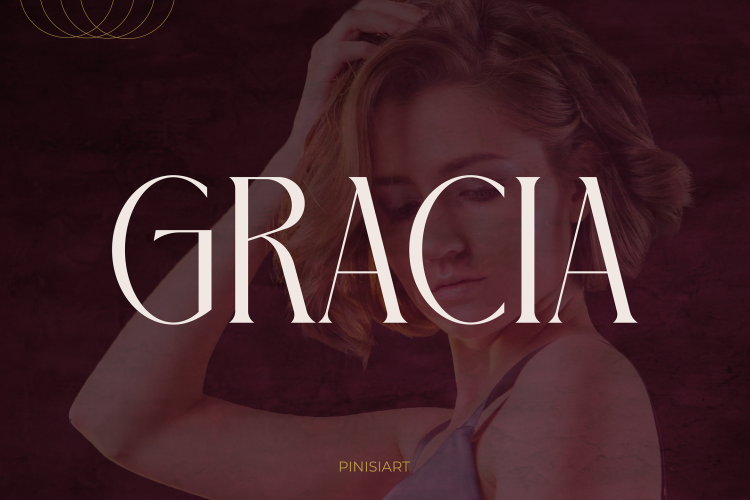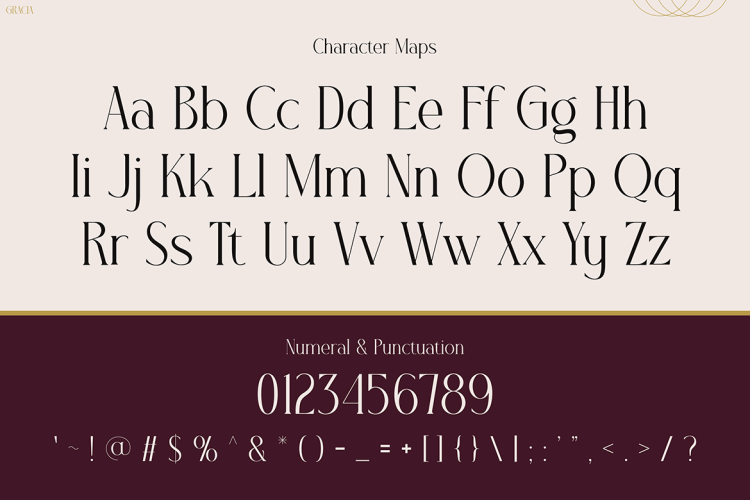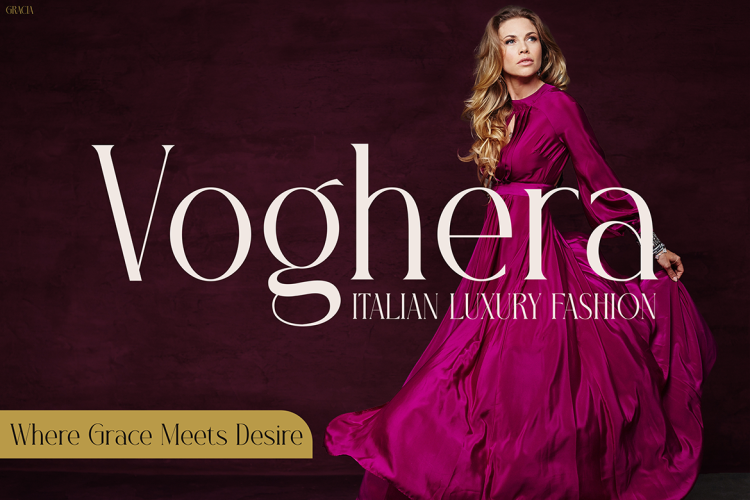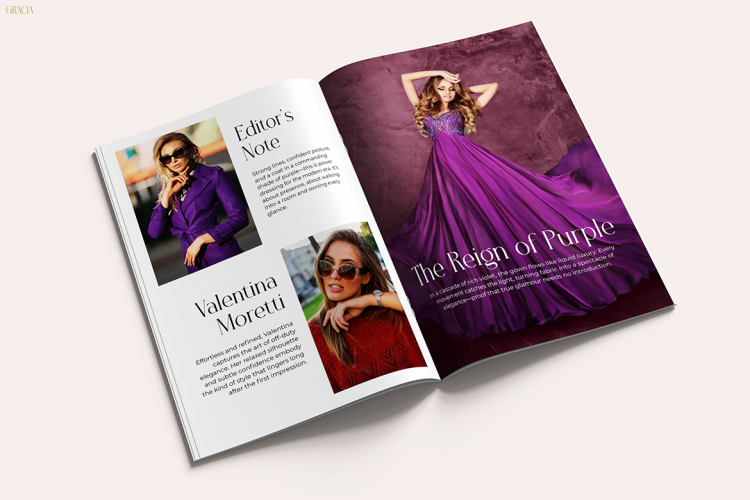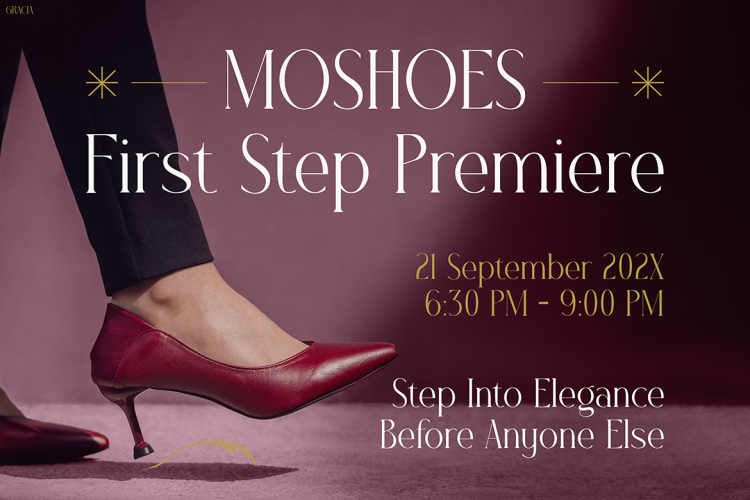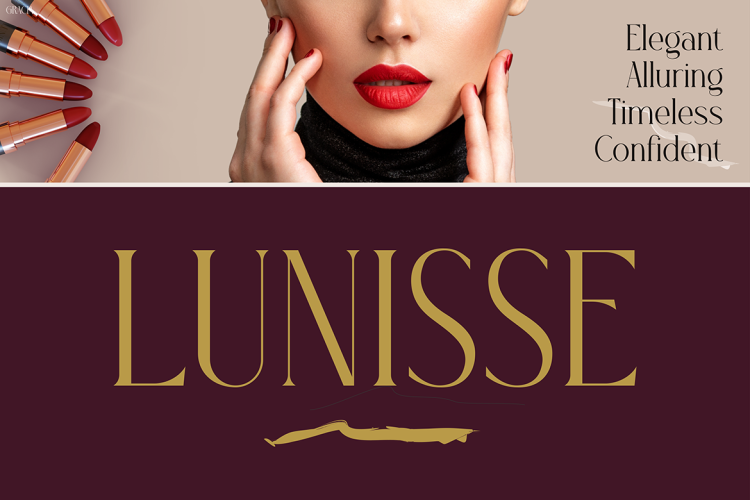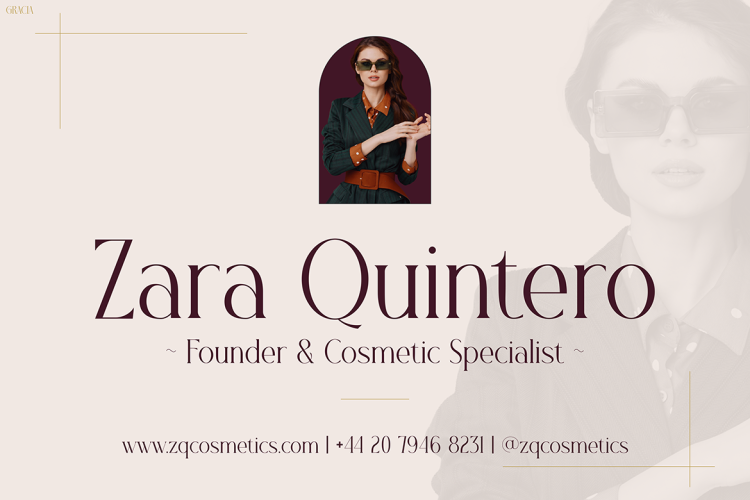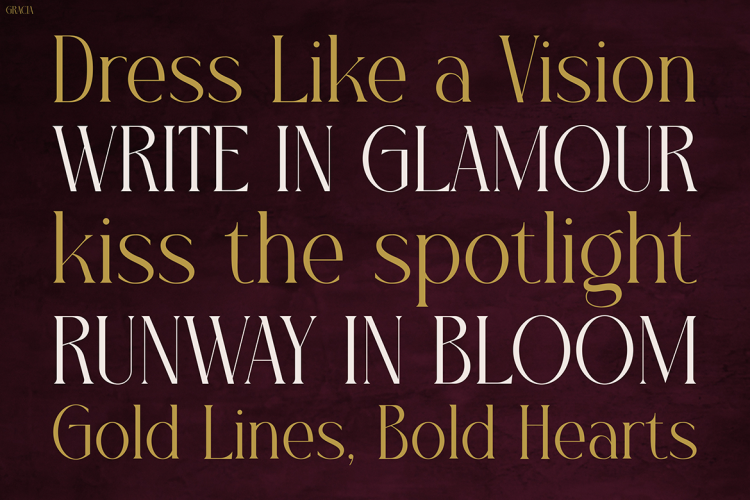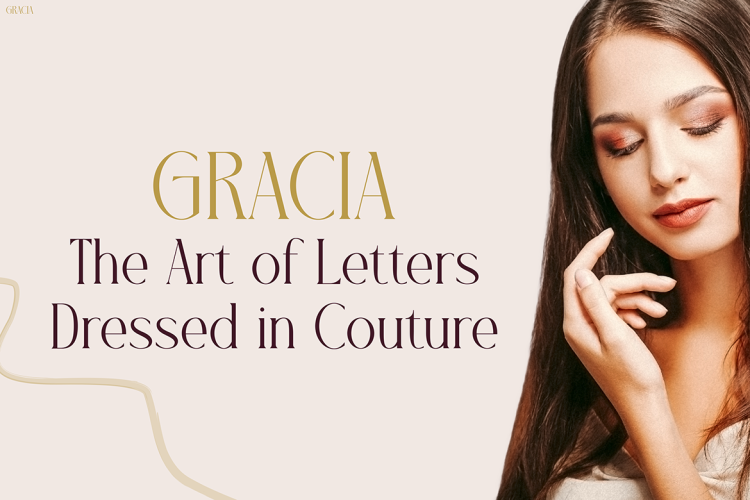
Instagram Font GRACIA is a luxurious typeface that effortlessly combines modern elegance with timeless sophistication. From the very first glance, it draws the eye with its graceful curves, high-contrast strokes, and perfectly balanced proportions. Moreover, its refined charm instantly elevates any design, whether for bold headlines or delicate captions. As a result, your message becomes not just readable, but visually captivating. Because of its versatile design, GRACIA adapts seamlessly across different mediums, making it equally stunning in both digital and print projects.
GRACIA offers a harmonious blend of fashion-inspired elegance and modern versatility. In addition, its smooth curves and clean lines allow designers to experiment freely with both uppercase and lowercase layouts. Consequently, it works beautifully across a wide range of backgrounds, from minimalist monochrome palettes to vibrant, high-fashion spreads. Furthermore, its style communicates luxury without being overly ornate, which makes it perfect for high-end brand messages with a contemporary twist. For instance, the fontโs couture-inspired forms give every word the feeling of belonging on a glossy magazine cover. Therefore, it is ideal for projects that require both beauty and clarity.
Instagram Font GRACIA Perfect For :
Fashion Brands that want to project a sophisticated and timeless image while maintaining modern appeal.
Luxury Product Packaging for cosmetics, fragrances, or boutique accessories that require an upscale touch.
Social Media Influencers & Content Creators looking to elevate Instagram posts, stories, and highlights with elegance.
Event Planners creating invitations for weddings, galas, and exclusive product launches.
Creative Agencies developing branding projects where chic and versatile typography is essential.
In short, Instagram Font GRACIA doesnโt merely decorate your designโit transforms it into an experience. Furthermore, its ability to command attention while maintaining refined subtlety makes it a valuable asset for anyone aiming to stand out in a crowded market. Therefore, if your goal is to inspire, impress, and captivate, this font offers the perfect typographic solution. Elevate your creative work with Instagram Font GRACIA, and let every project speak the universal language of timeless elegance.